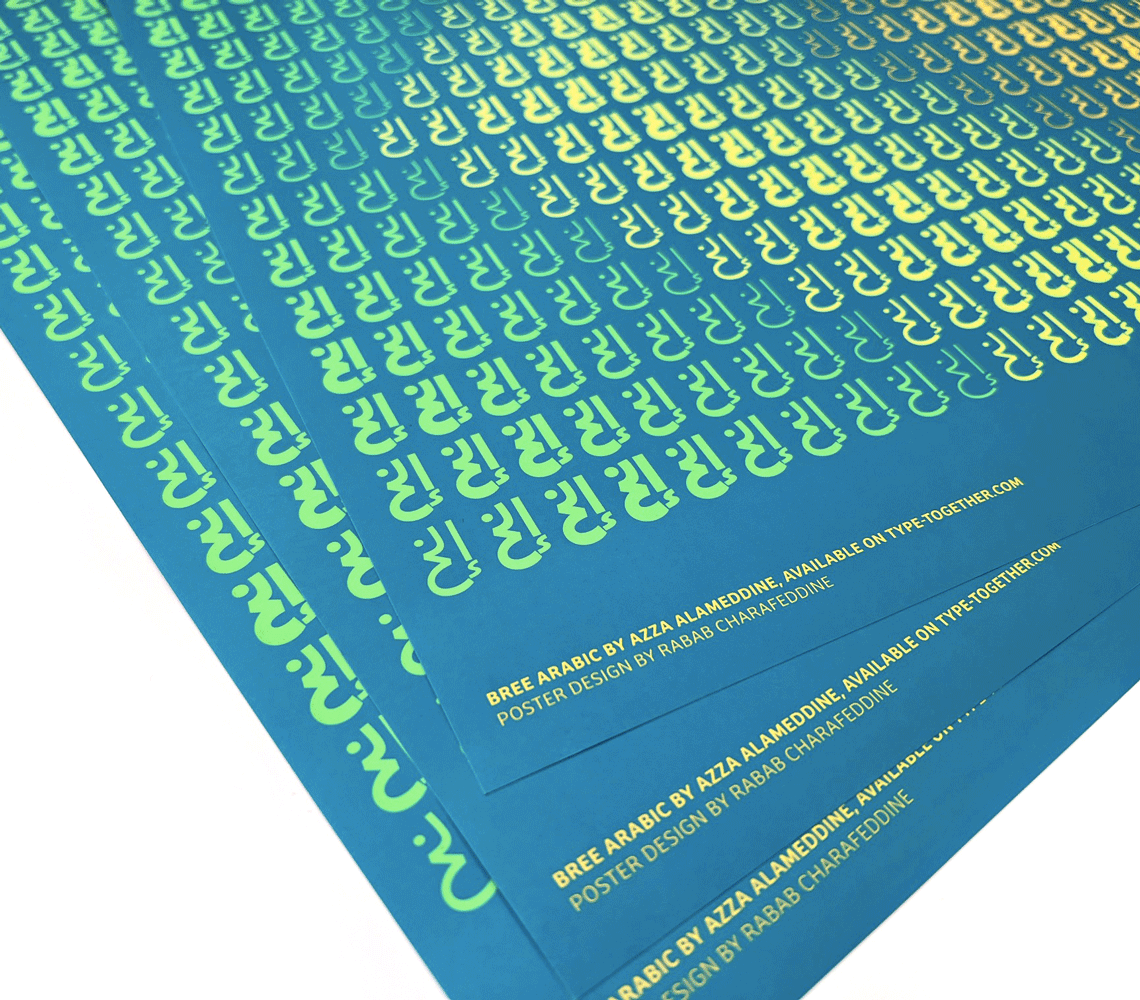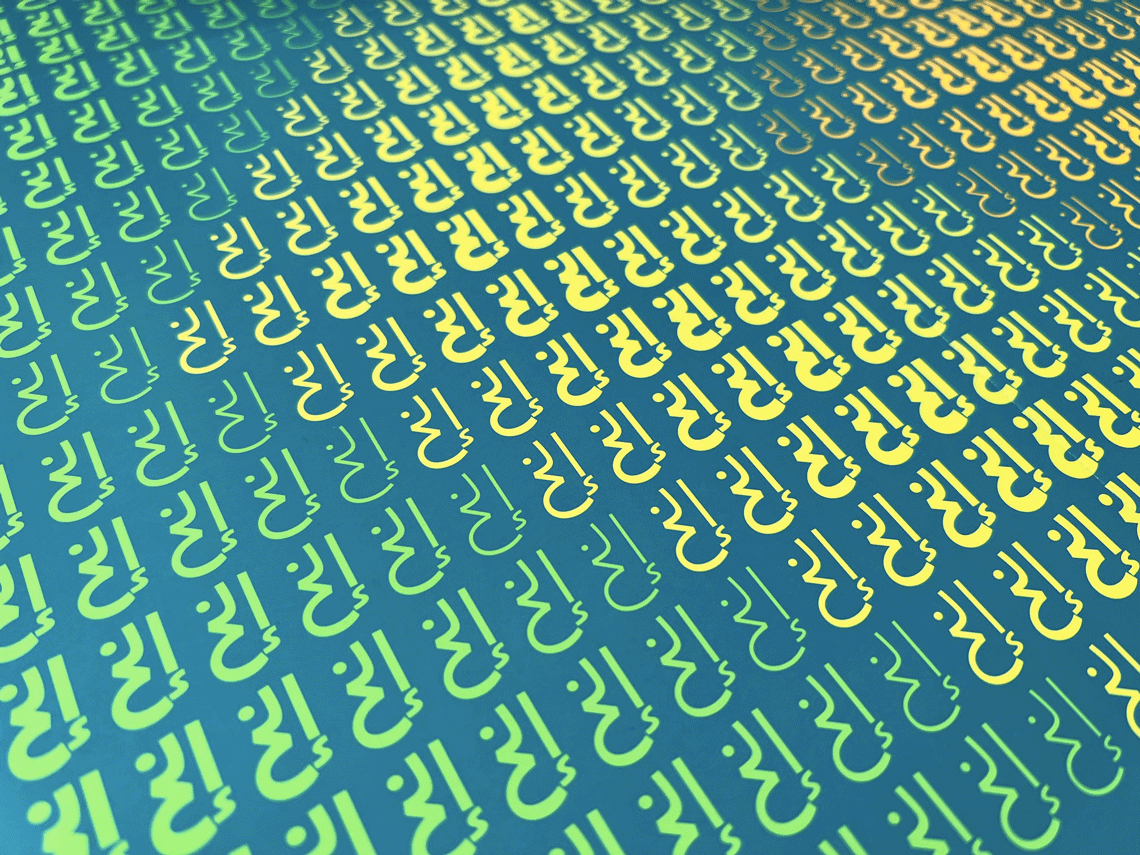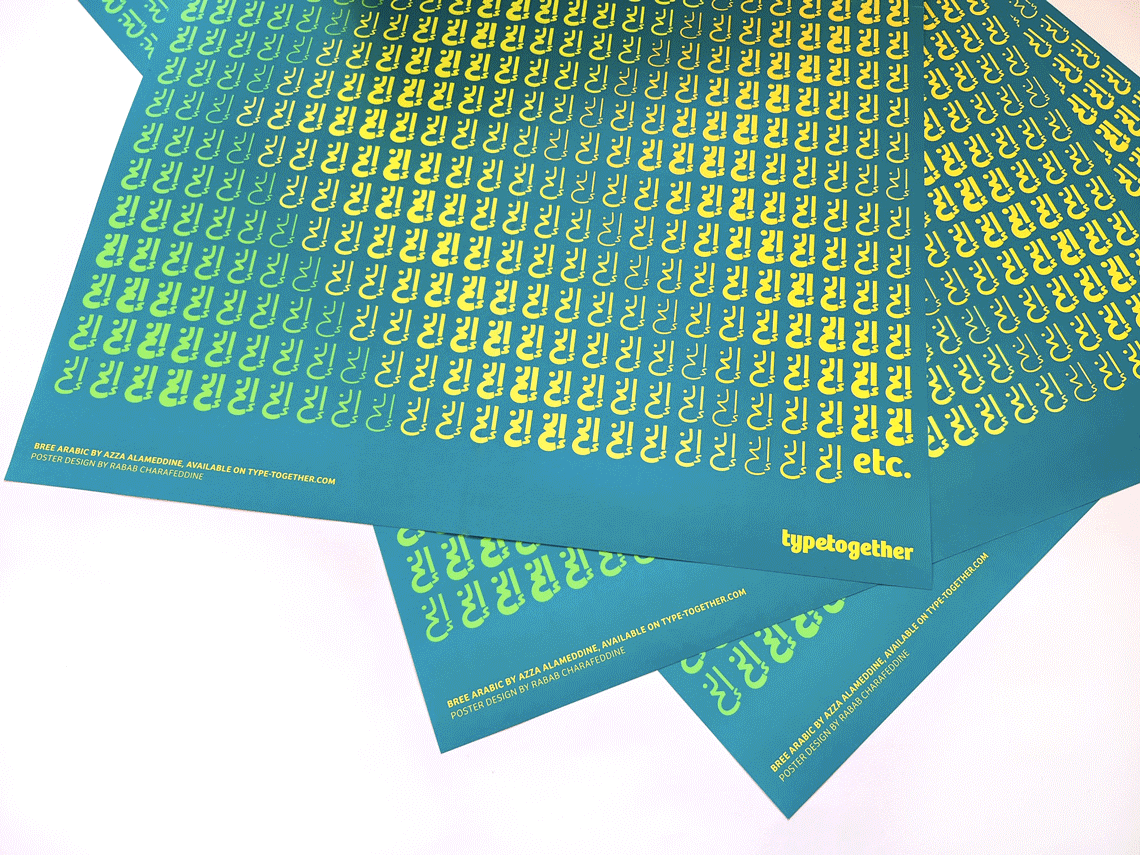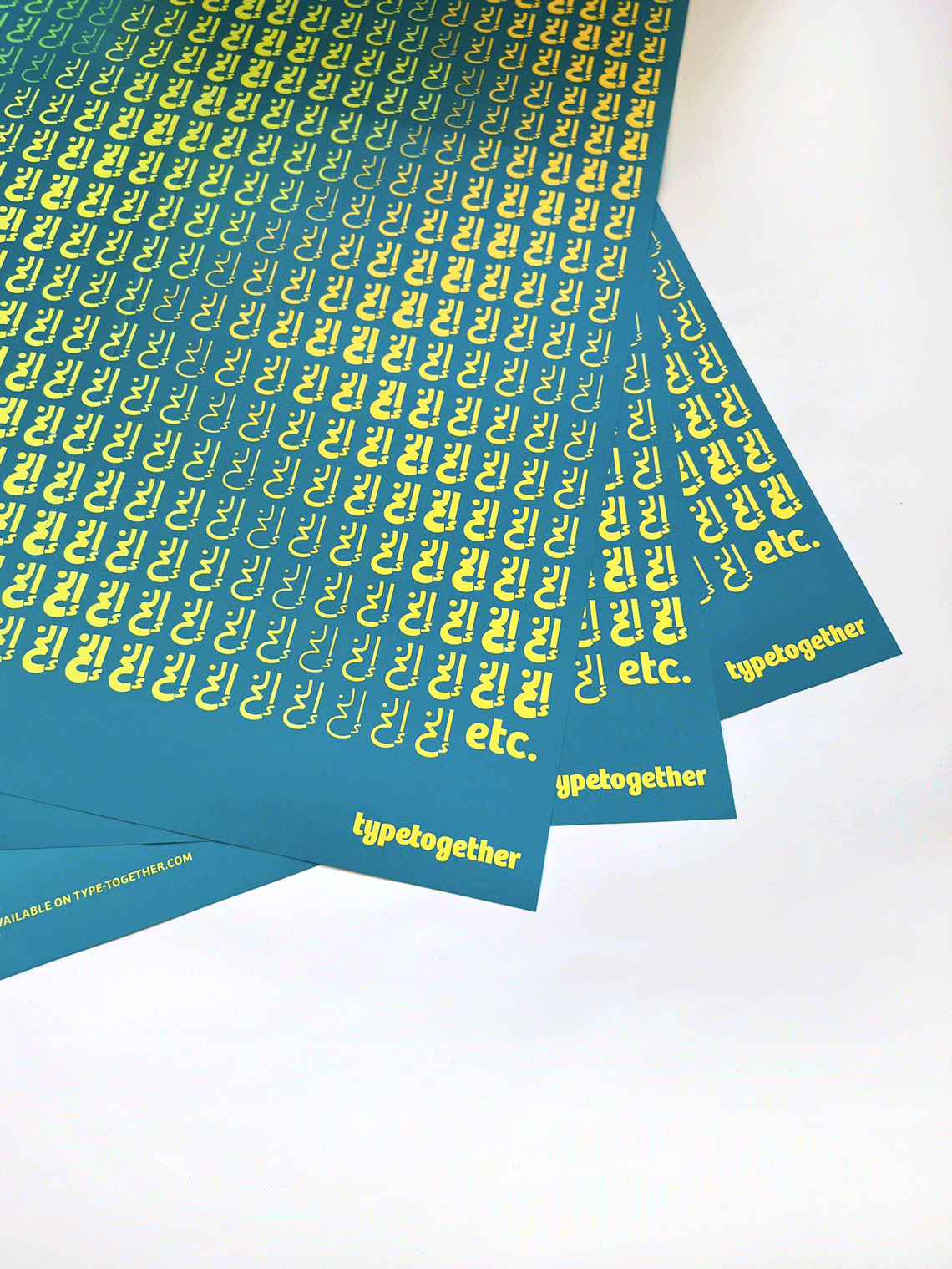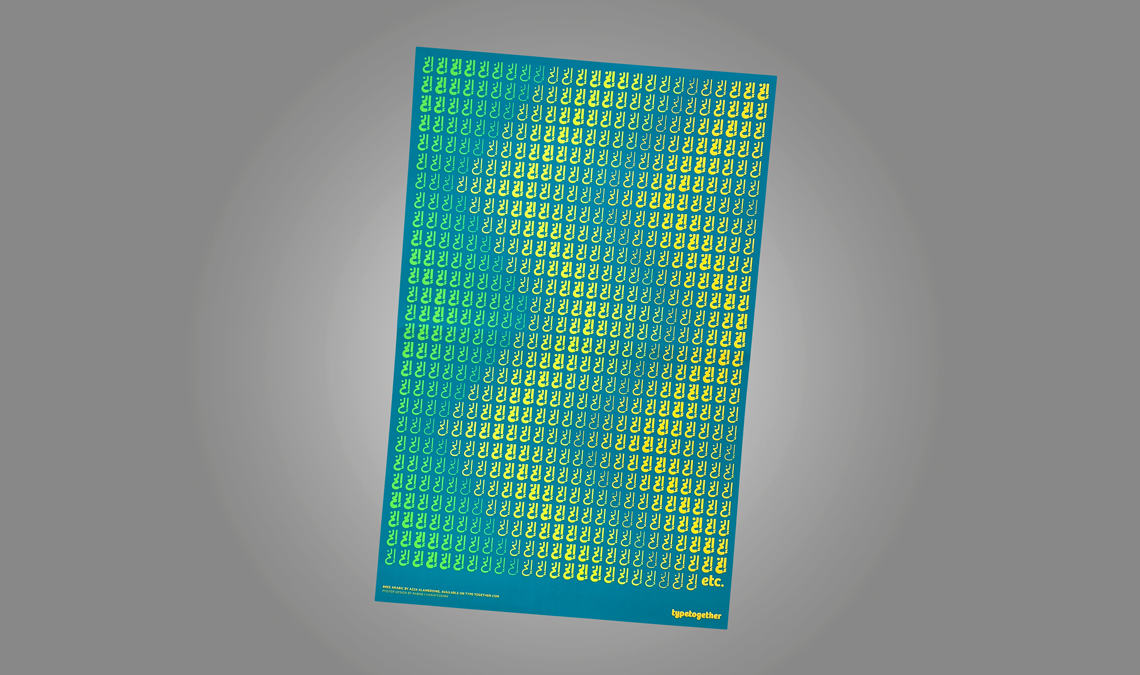
Bree Arabic poster
Designed by Rabab Charafeddine. 56x36 cm, four-colour offset print on 115g G-Print Smooth paper.
Bree Arabic poster
To mark the release of our Bree Arabic type family, our talented graphic designer Rabab Charafeddine designed this cute shining poster, now available in our store. Just cover the shipping/handling and the poster is yours for free. The design simulates a wavy movement by repeating the same word using font styles cleverly and the help of three neon colours on a coloured background.